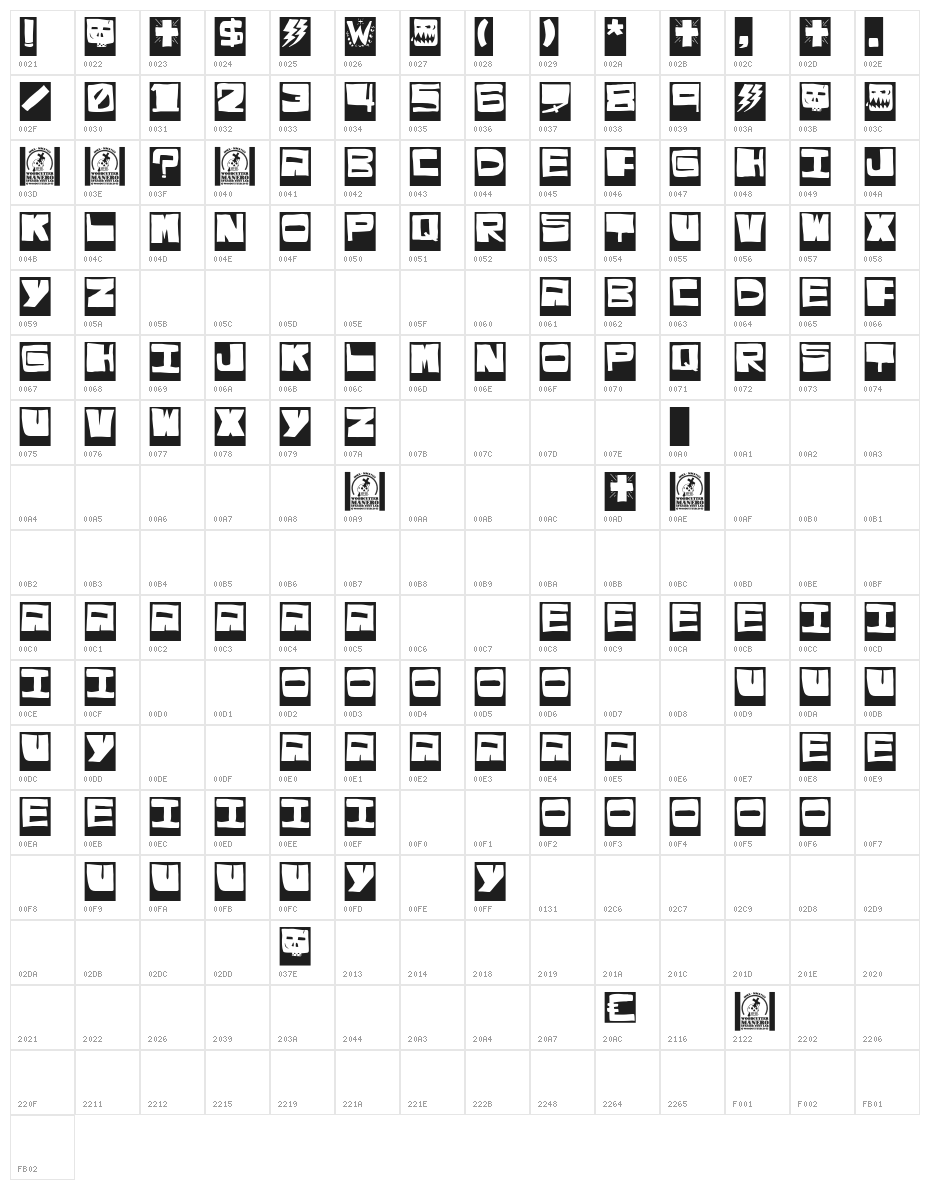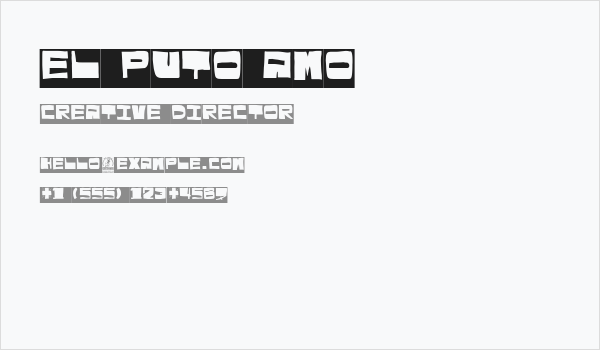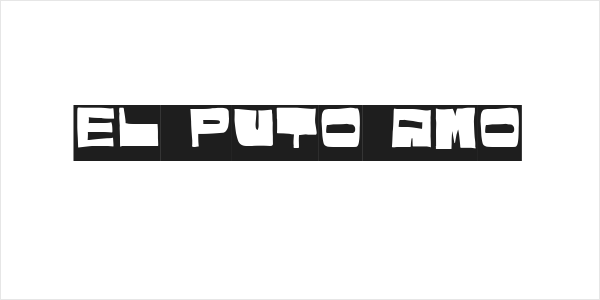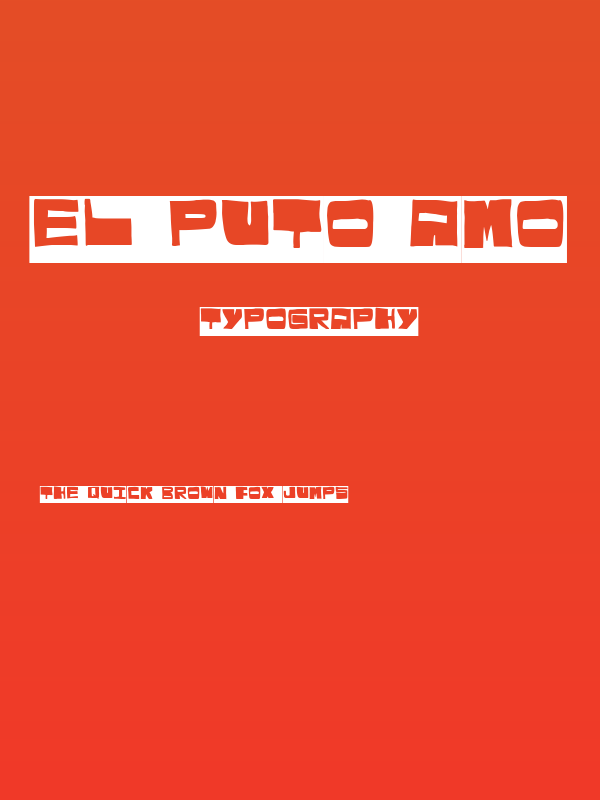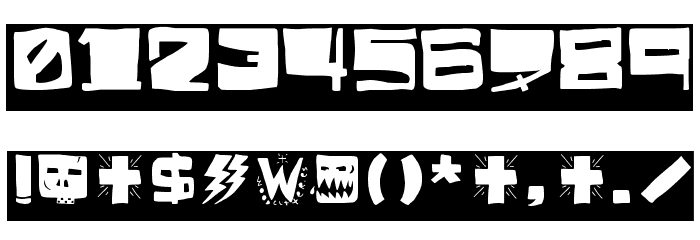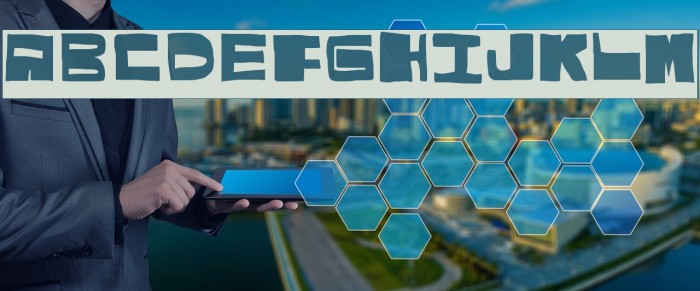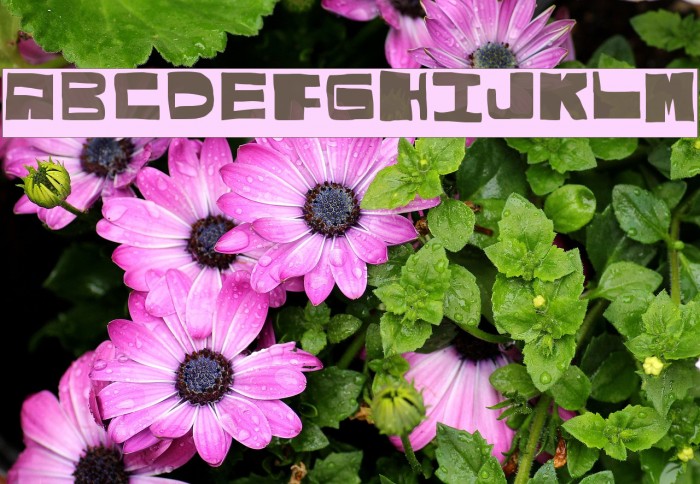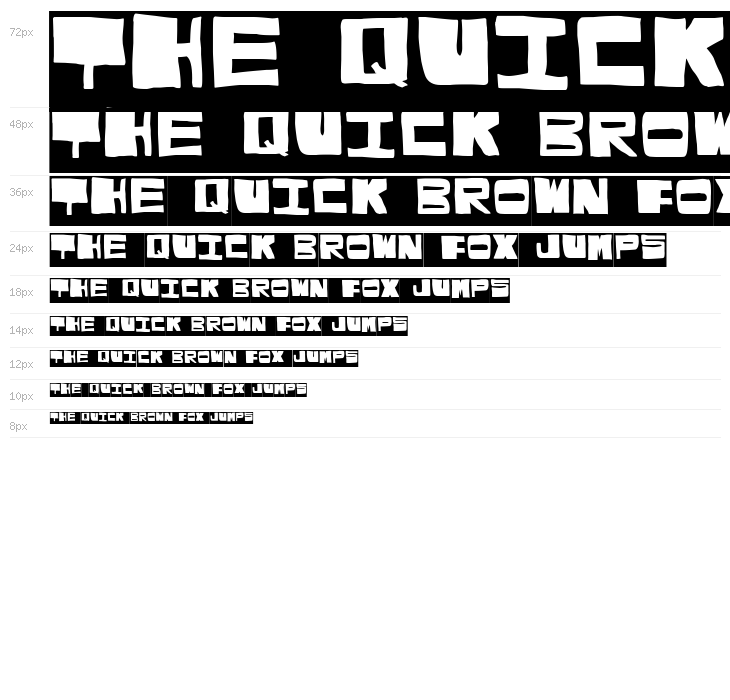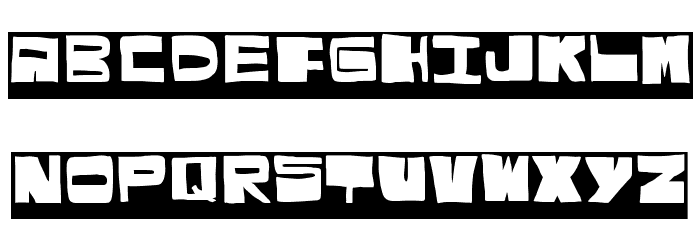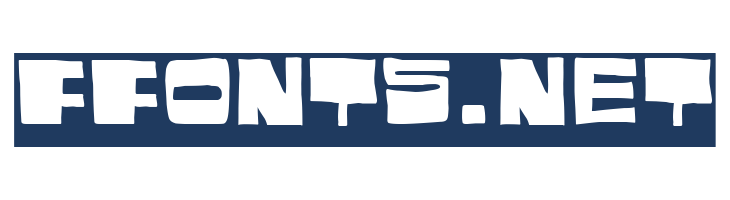
El puto amo Font
El puto amo Description
This font features a bold and edgy design with a distinct graffiti-inspired style. Each character is enclosed within a rectangular block, creating a striking contrast between the letterforms and the background. The uppercase letters are bold and angular, with sharp edges and varying stroke thicknesses that give a dynamic and energetic feel. The lowercase letters maintain the same blocky structure, ensuring consistency across the typeface. Numbers and special characters are equally bold, with unique and playful designs that add to the font's overall rebellious and urban aesthetic. This font is perfect for projects that require a strong visual impact and a sense of modern street culture.
| Overall Style | Modern, Urban, Edgy |
| Proposed Projects | Ideal for street art projects, urban-themed posters, music album covers, and edgy branding materials. |